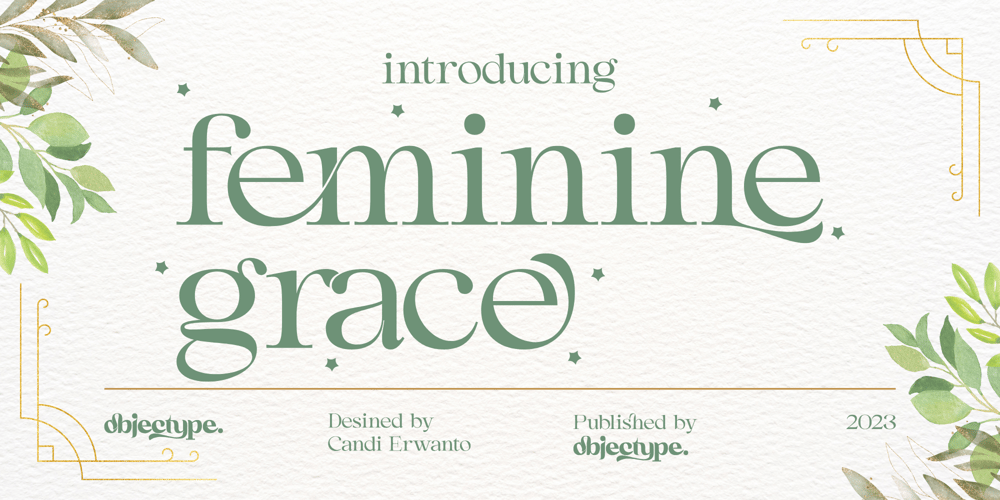
Feminine Grace Font Family was designed by Candi Erwanto and published by Objectype. Feminine Grace contains 1 styles and family package options. “Feminine Grace Font” by Candi Erwanto from Objectype Studio is a perfect blend of elegance and simplicity. With its neat and legible serif style, it’s ideal for creating elegant and feminine wedding invitations and print materials. Bring beauty and sophistication to your designs with “Feminine Grace.”